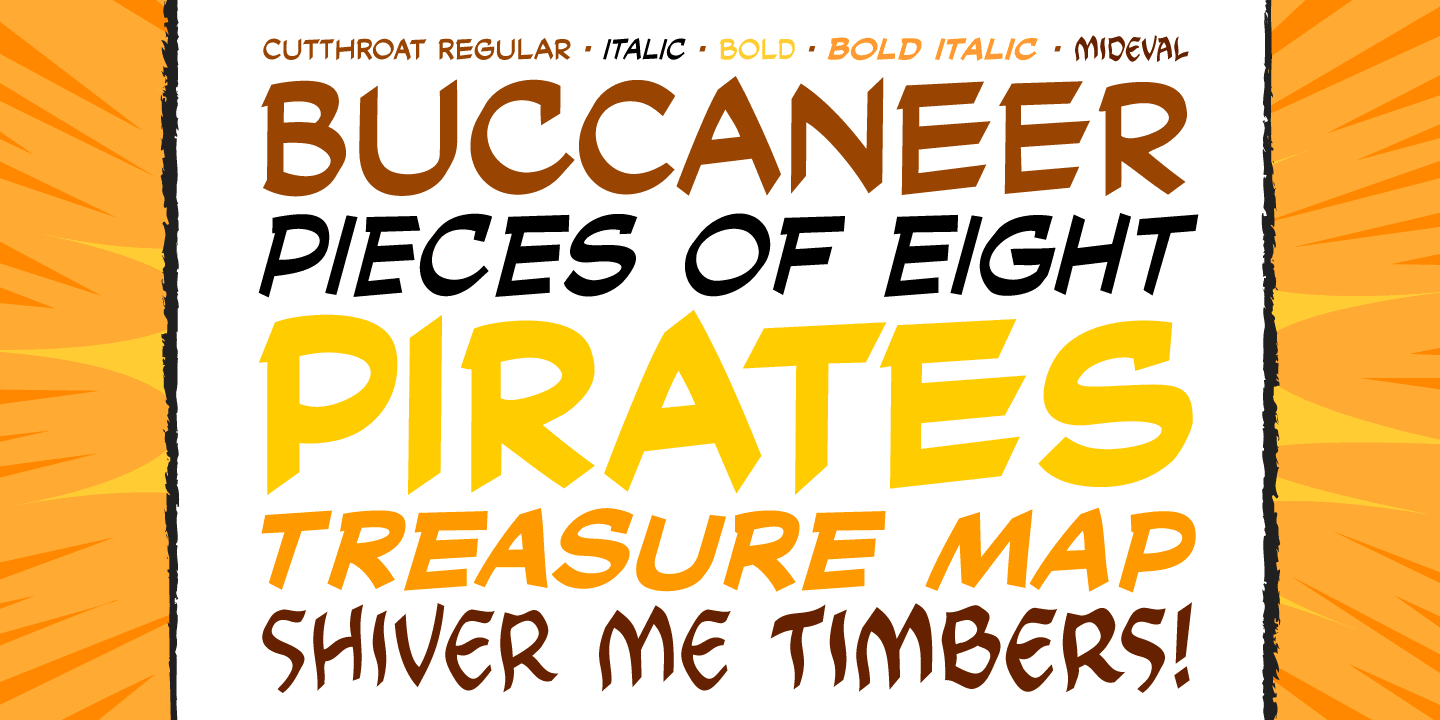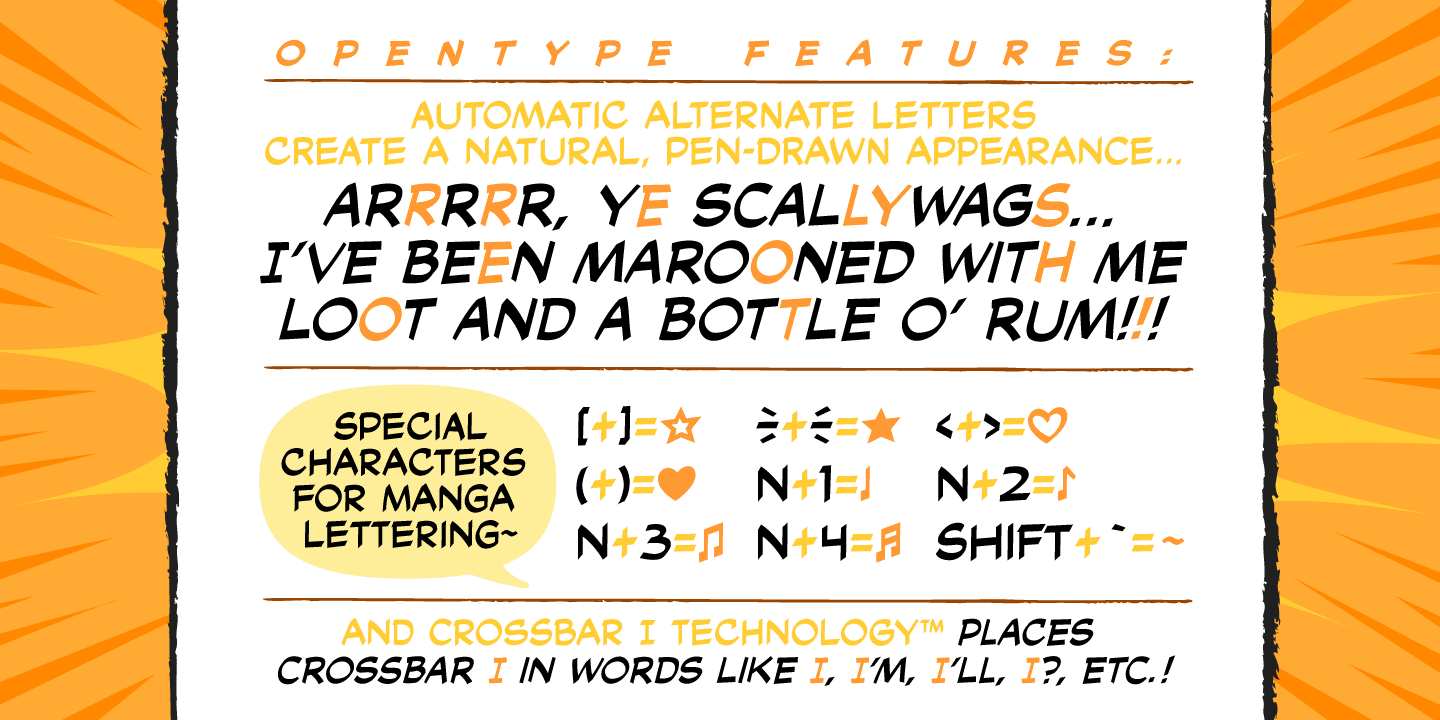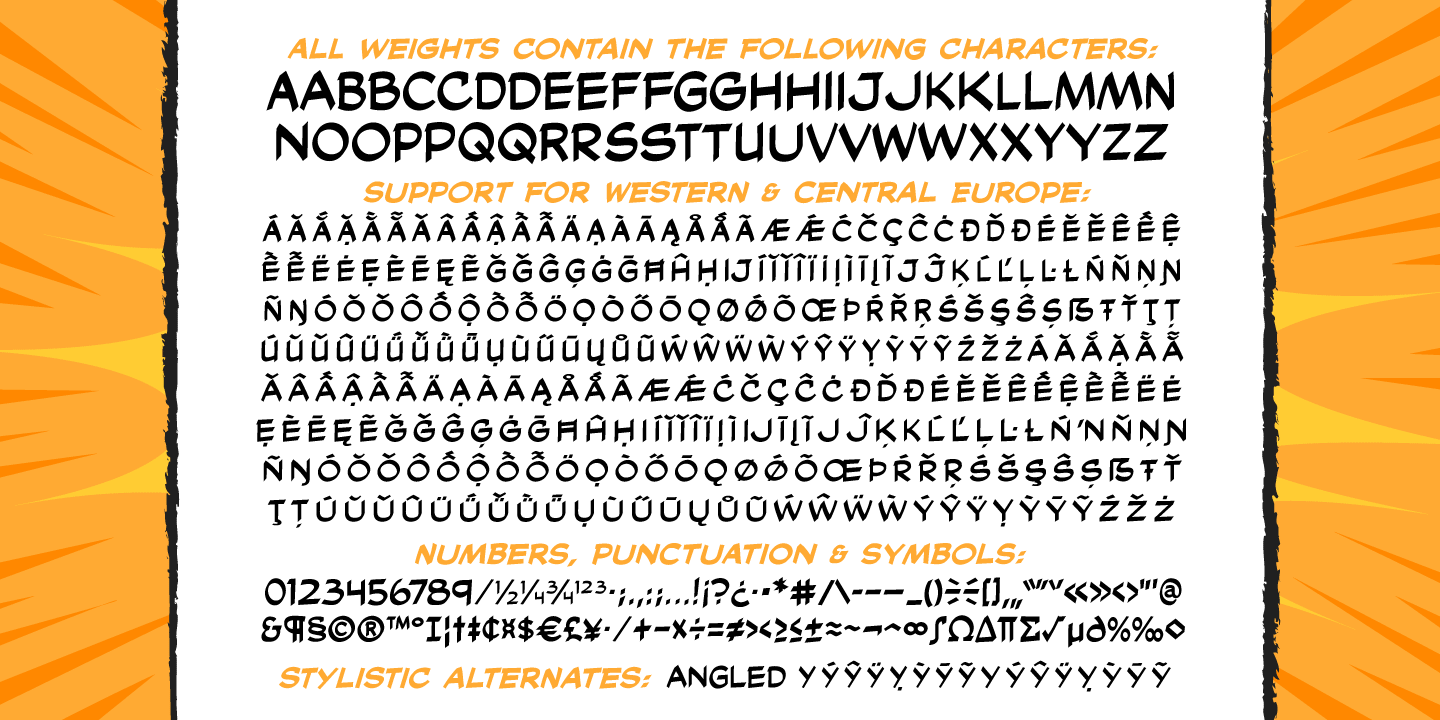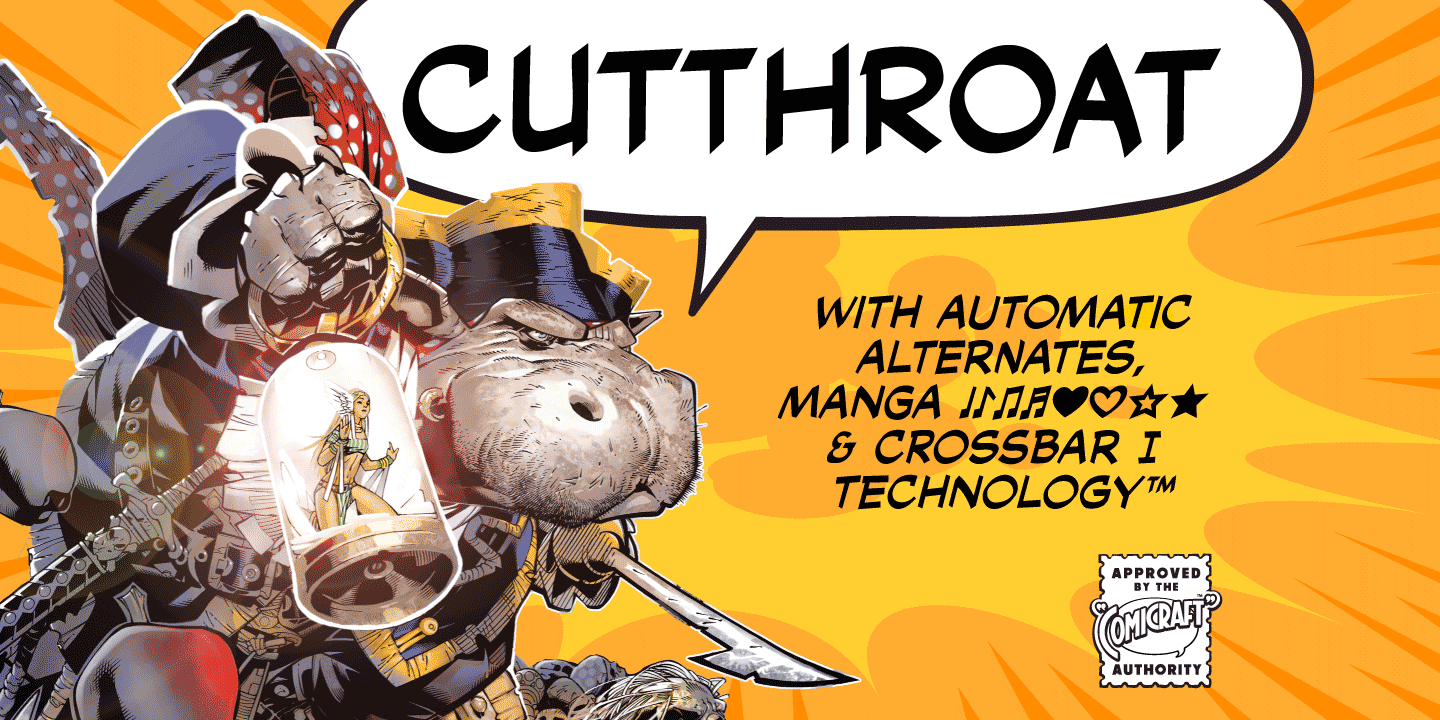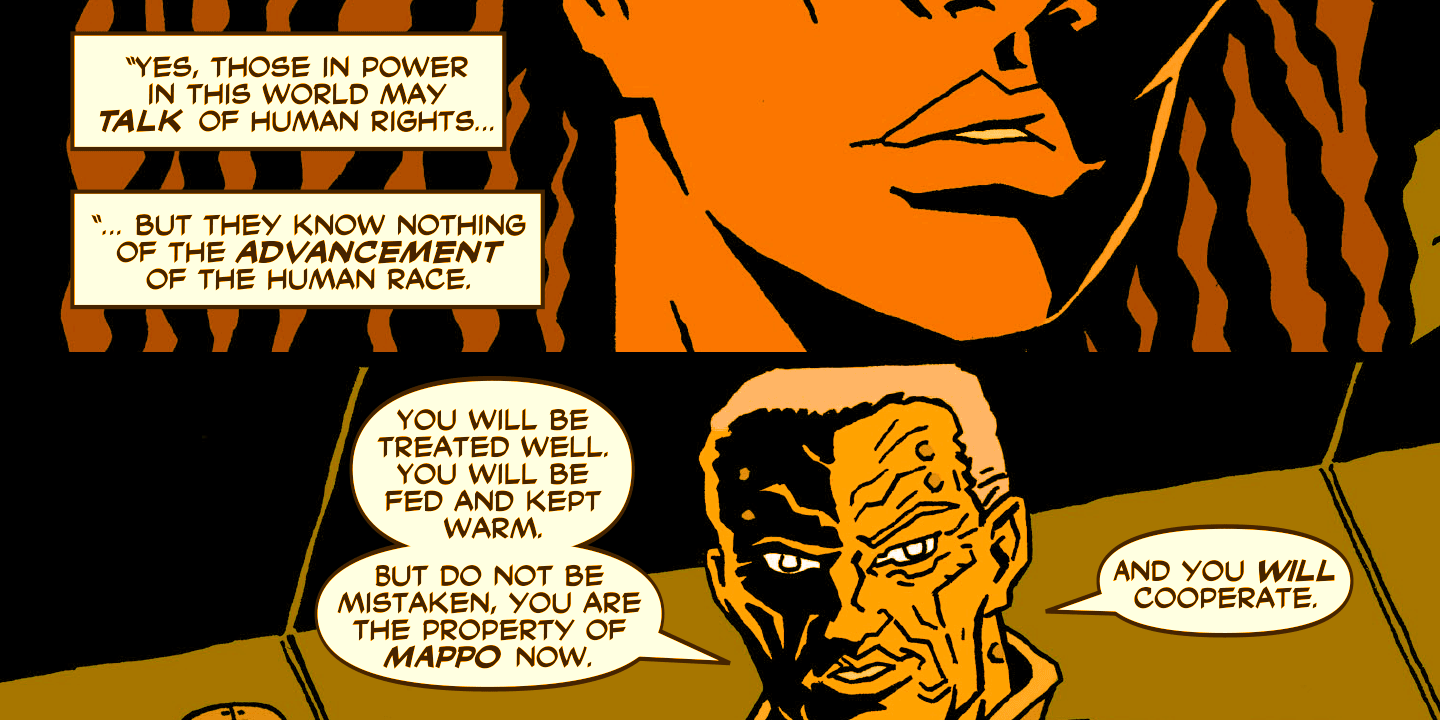
About Cutthroat
Shiver me Timbers and Splice me Mainbrace! There's strange goings on in Smugglers' Cove… A gathering of thieves, brigands, piratefolk and back-stabbing blackguards the likes of which have not been seen since the days of Redbeard! Someone'll…